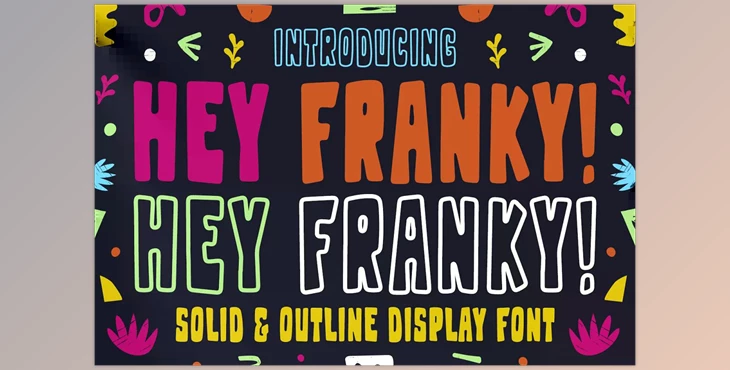
This font is appropriate for use for logotypes for product designs, labels, watermarks, social media posts, invitations, clothing, signs or motor/car, special events, or anything else that requires handwriting skills.
How can we create eye-catching and playful logotypes for brands?
You can use "Hey Franky – Fun Display Font."
What is Hey Franky – Fun Display Font?
"Hey Franky" is a bold, solid, and outline-lettered display font designed to bring a fun and playful touch to various creative projects. The font offers both bold and solid variations, allowing users to choose between a solid, filled look and an outlined appearance. This versatility adds creative possibilities to different design projects.